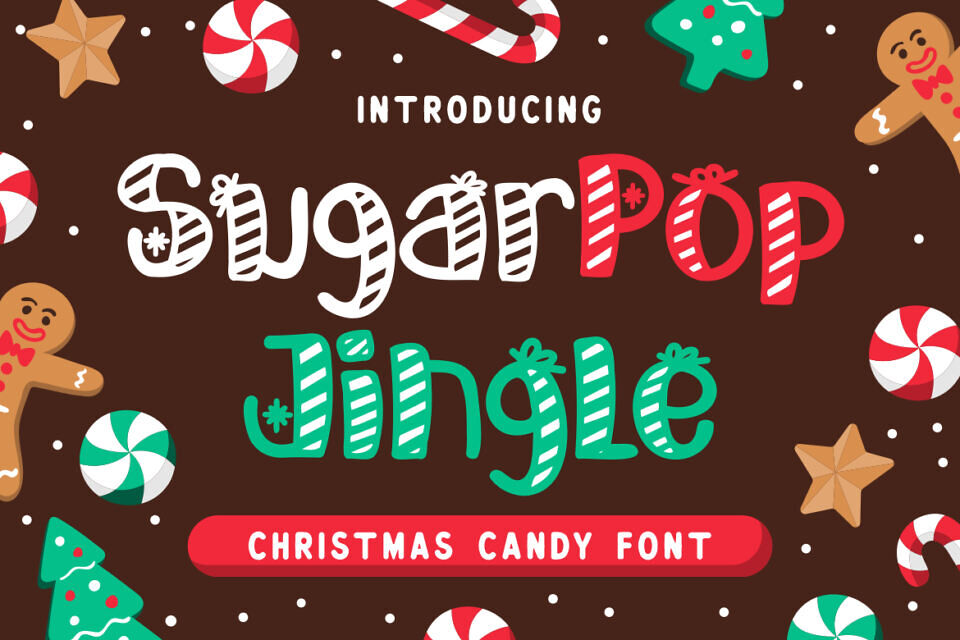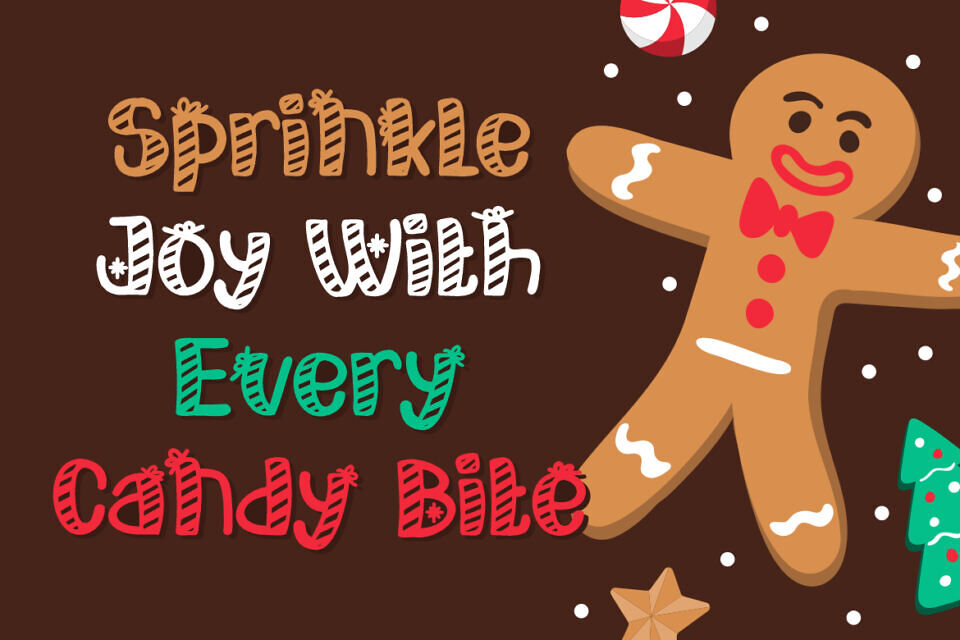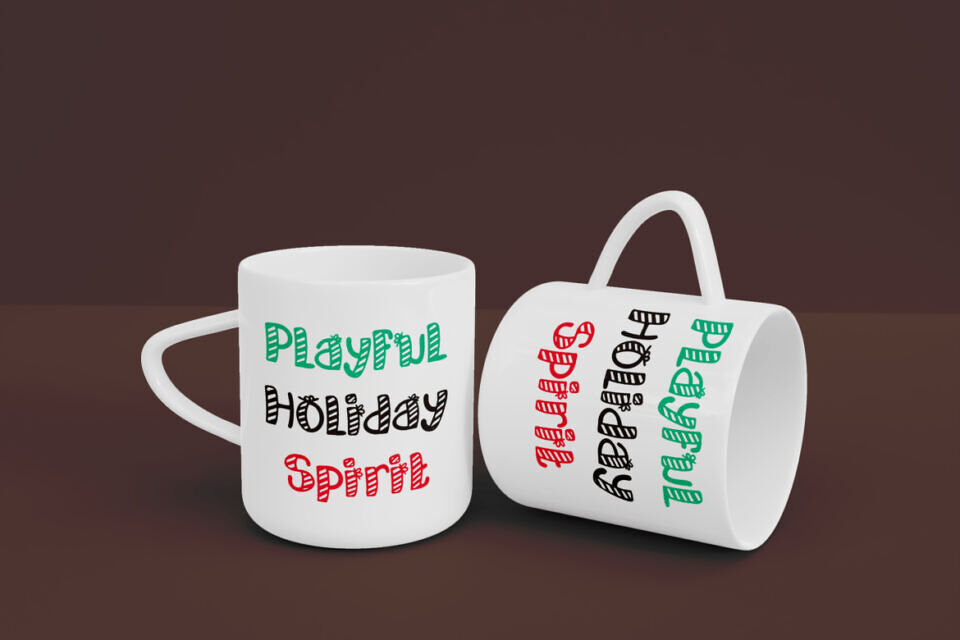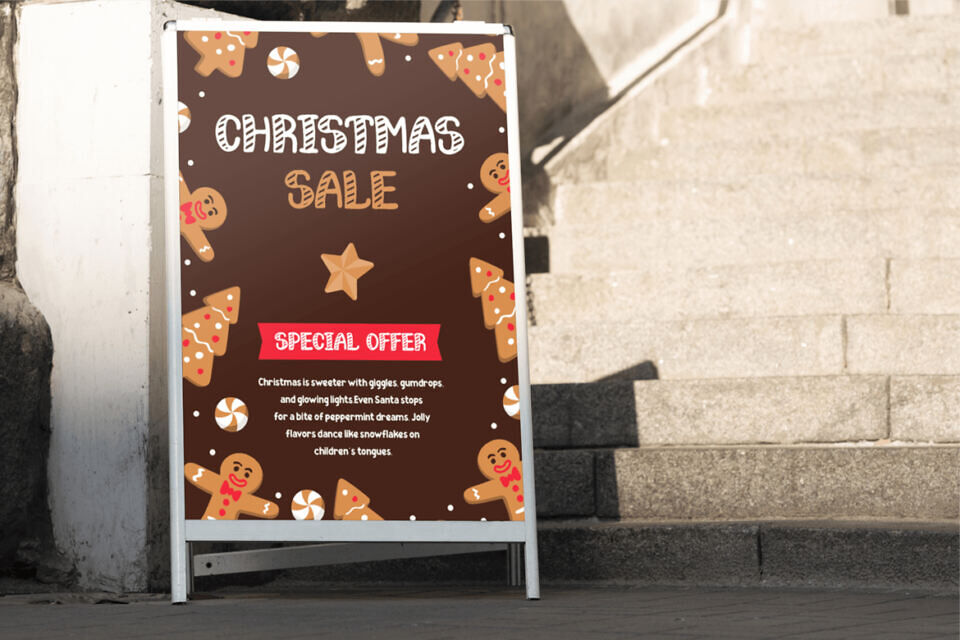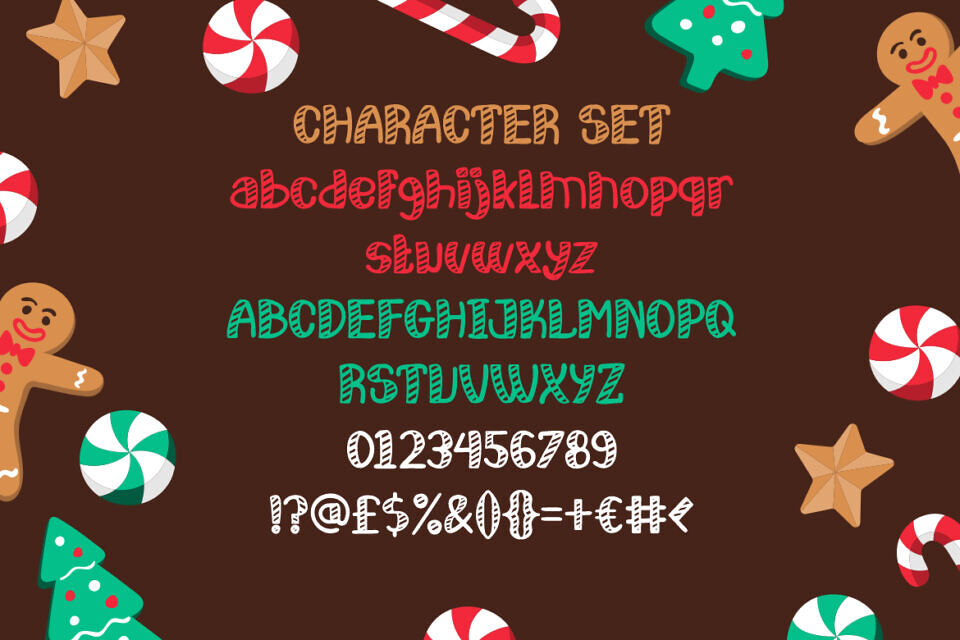
Get ready to unwrap the festive cheer with Sugarpop Jingle, a delightful Christmas candy font designed to capture the magic of the holiday season. Inspired by sweet peppermint swirls, candy canes, and gingerbread joy, this playful display font brings bold, whimsical letterforms to life with hand-drawn charm and vibrant, candy-striped detailing.
Each character pops with a joyful bounce, evoking the innocent glee of childhood holidays. Whether you’re designing Christmas sale posters, gift tags, or holiday cards, Sugarpop Jingle adds a spirited and sugary twist to every layout. It features a versatile character set with uppercase, lowercase, numbers, and festive punctuation – all wrapped in delicious holiday energy.